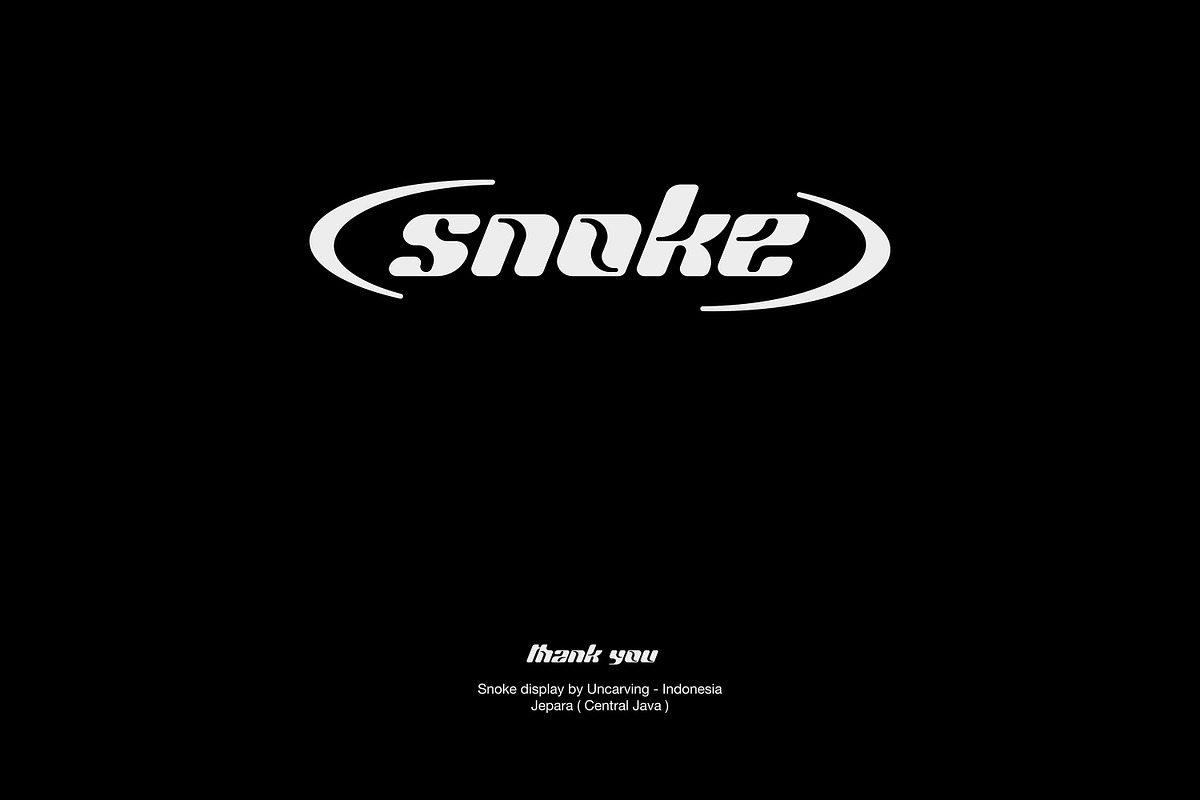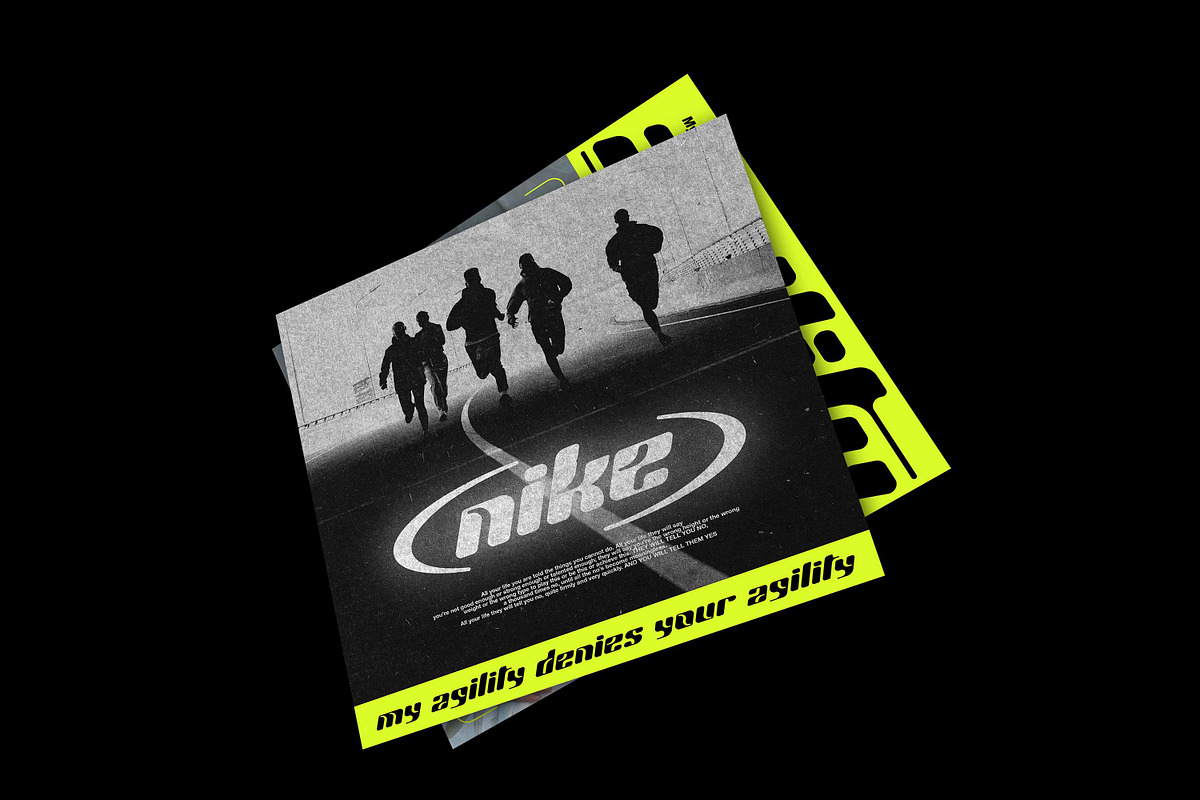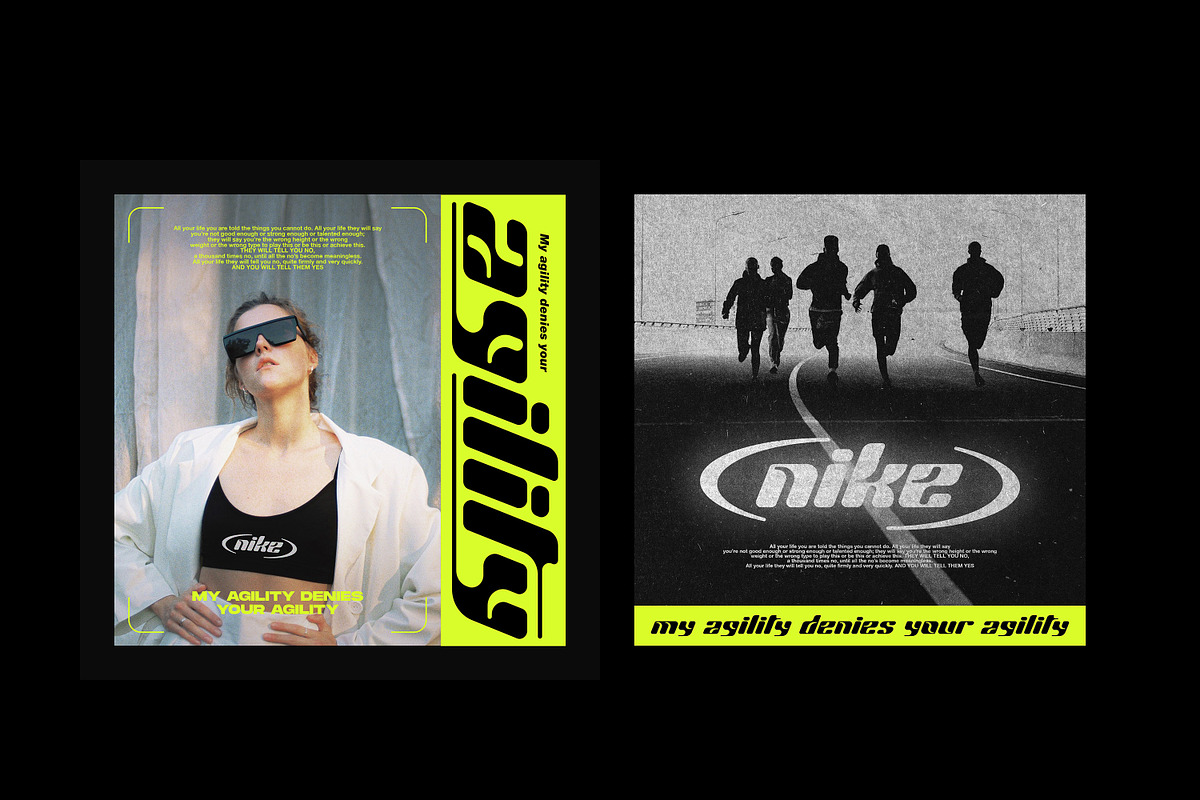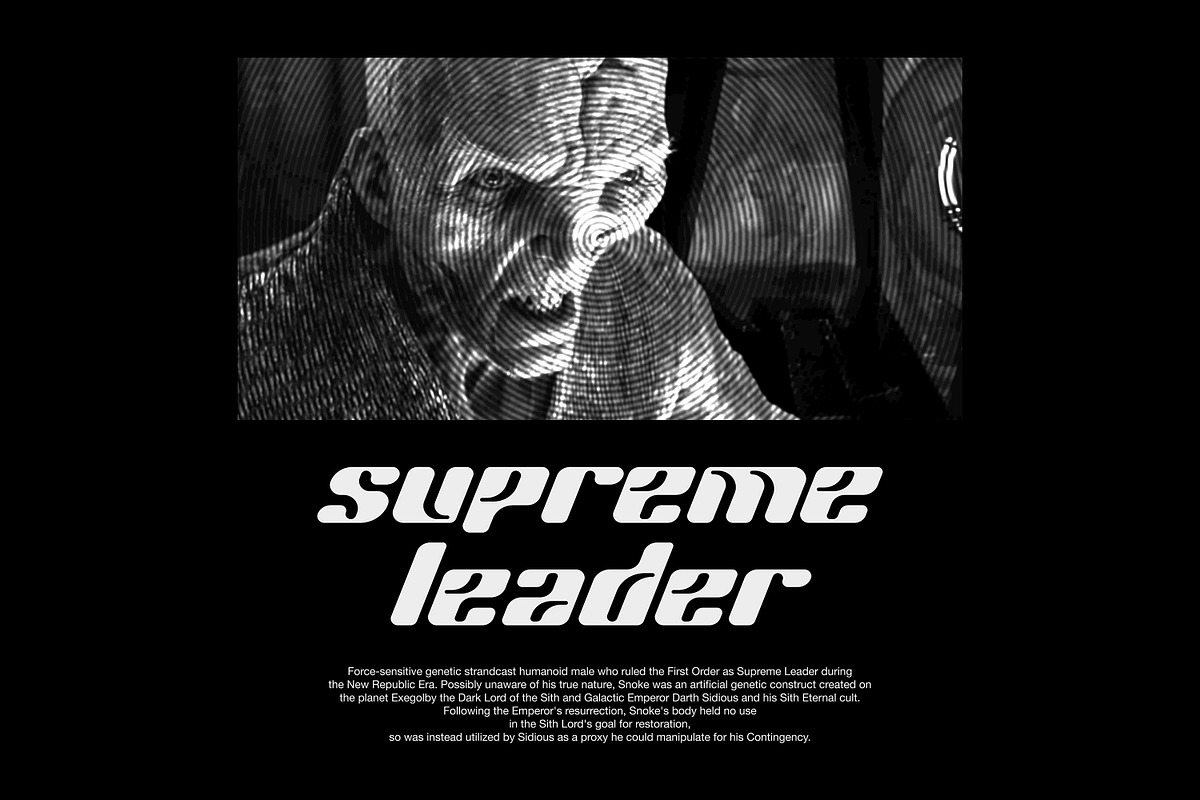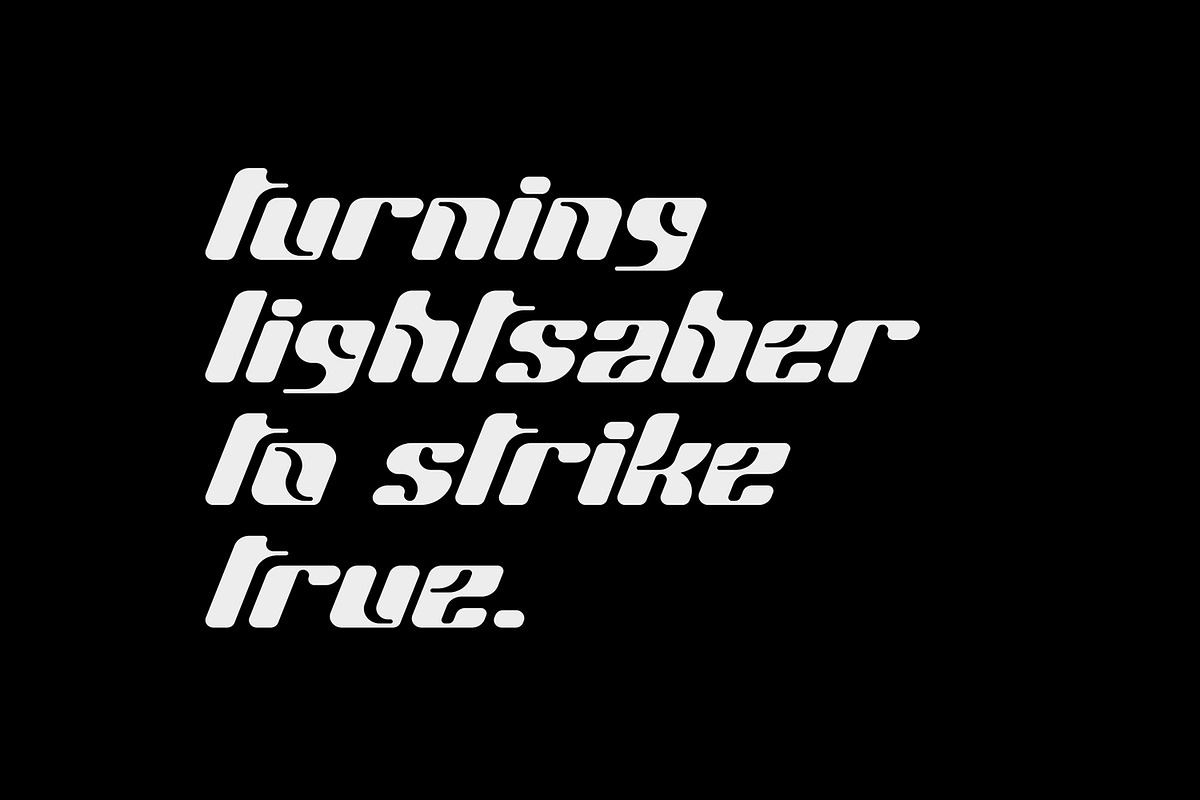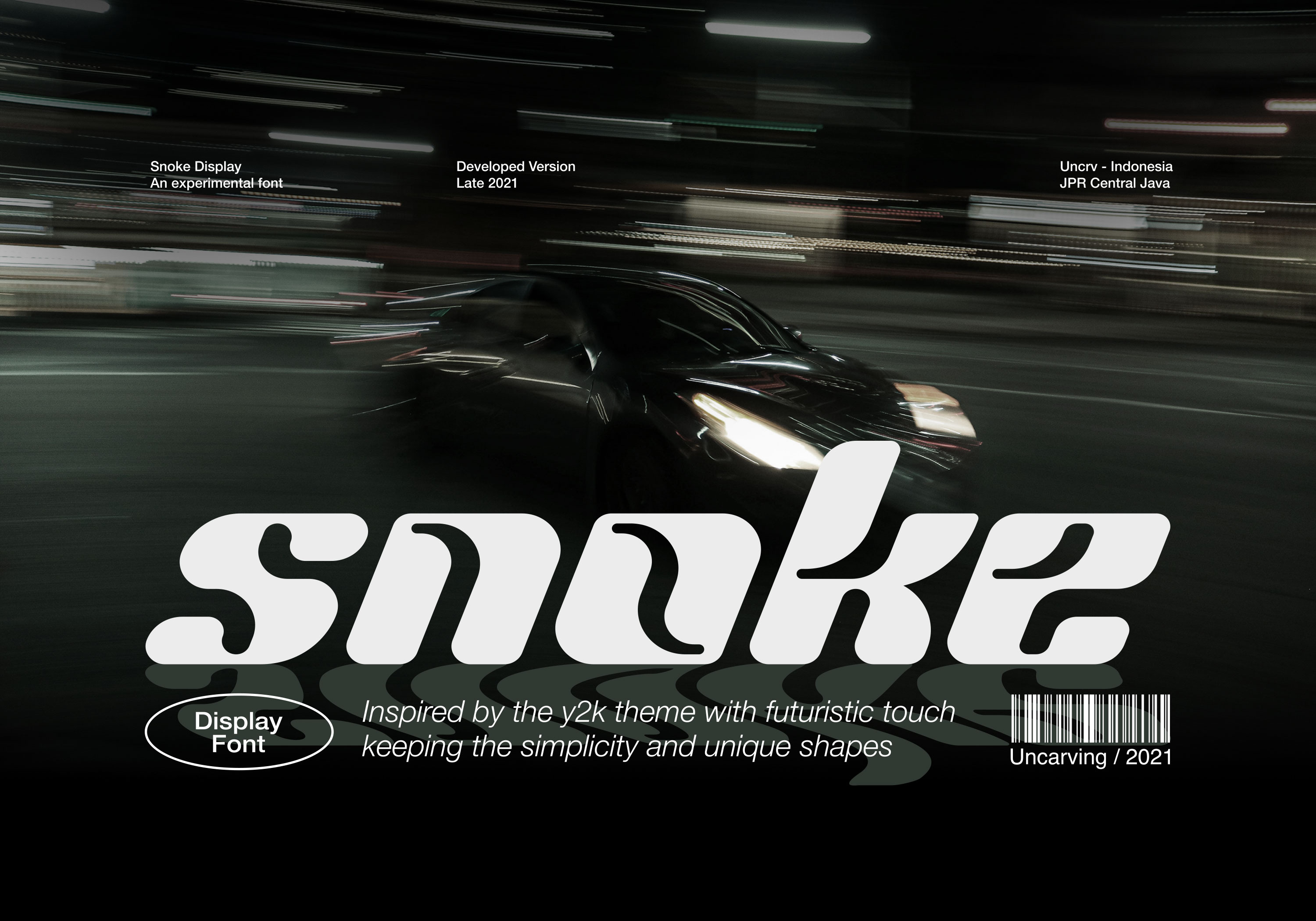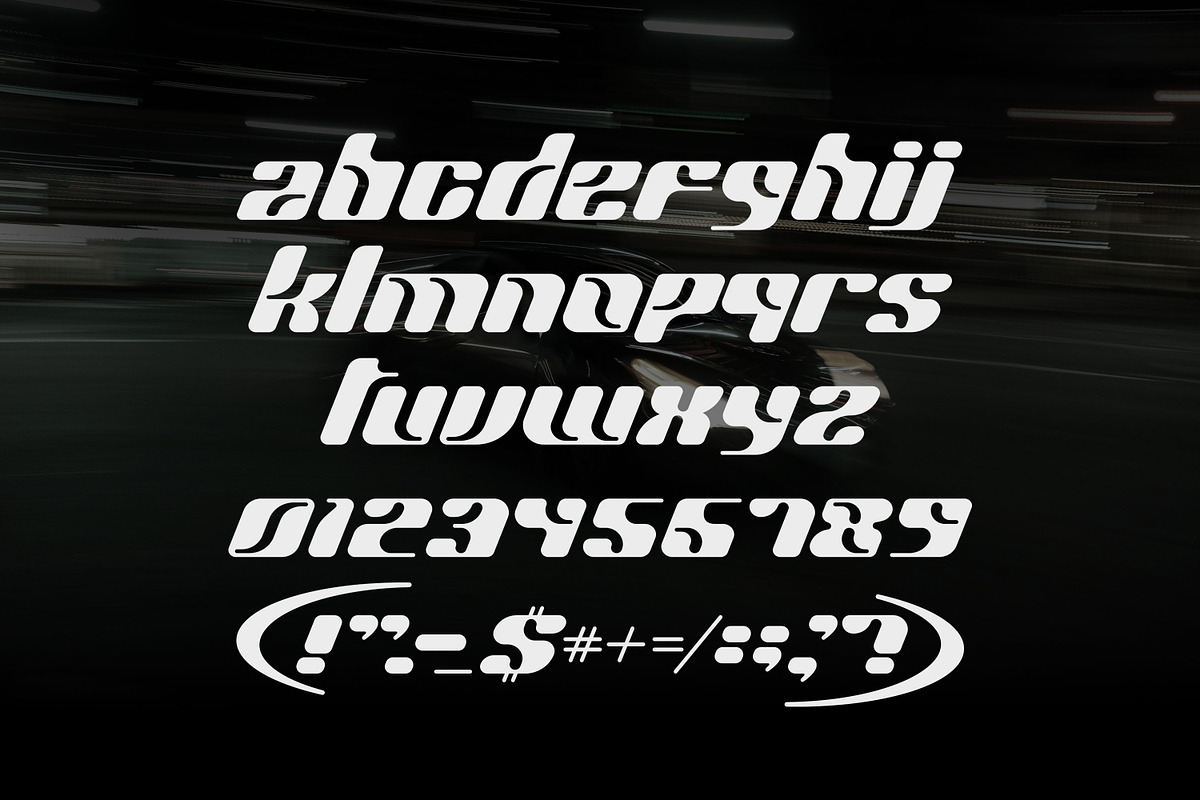
Snoke - Display font
Inspired by the y2k theme with futuristic touch keeping the simplicity and unique shapes. Genesis can be used even for commercial you may not share this font, neither on websites or to other computers,unless uncarvings permission is given.